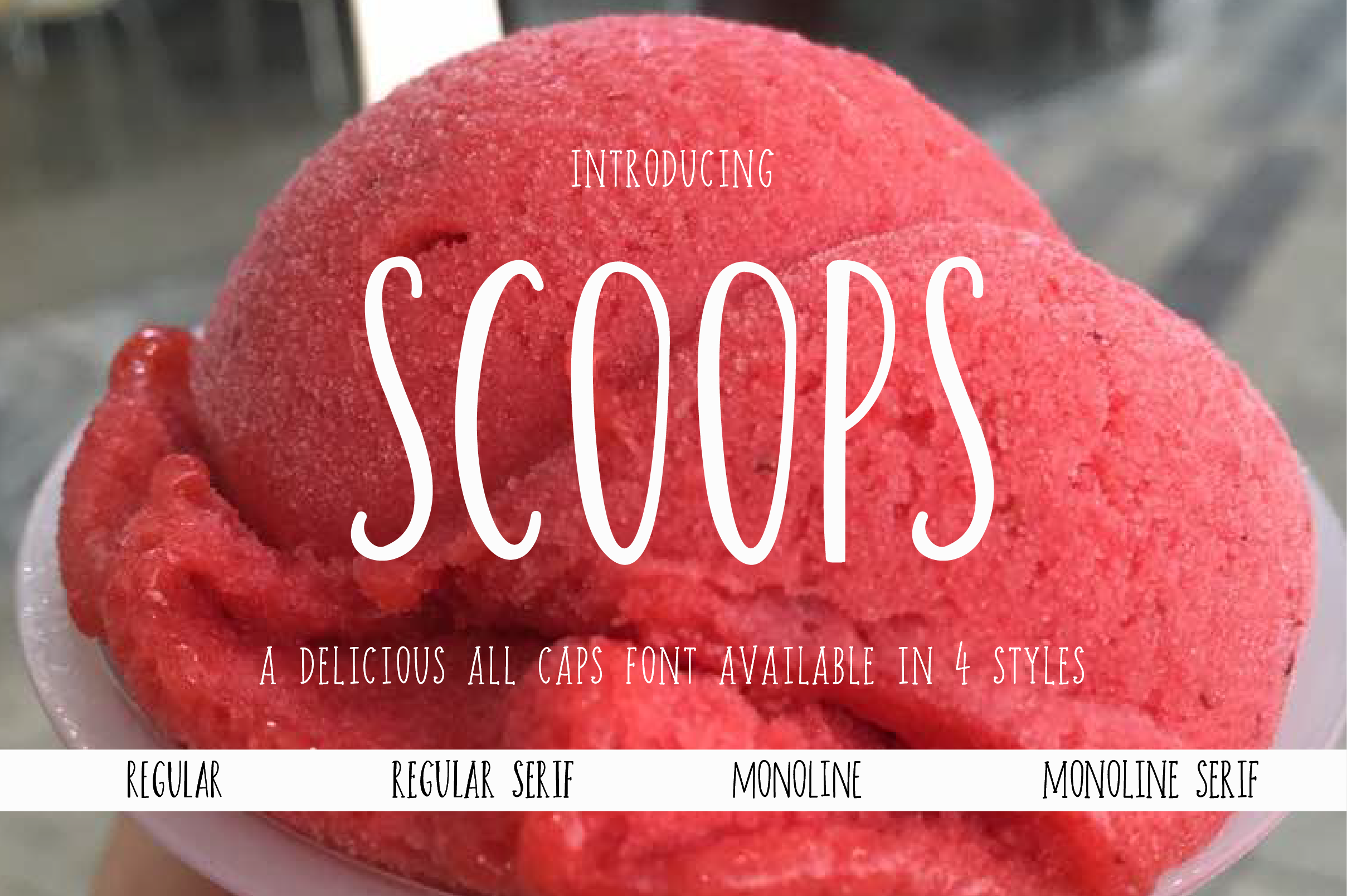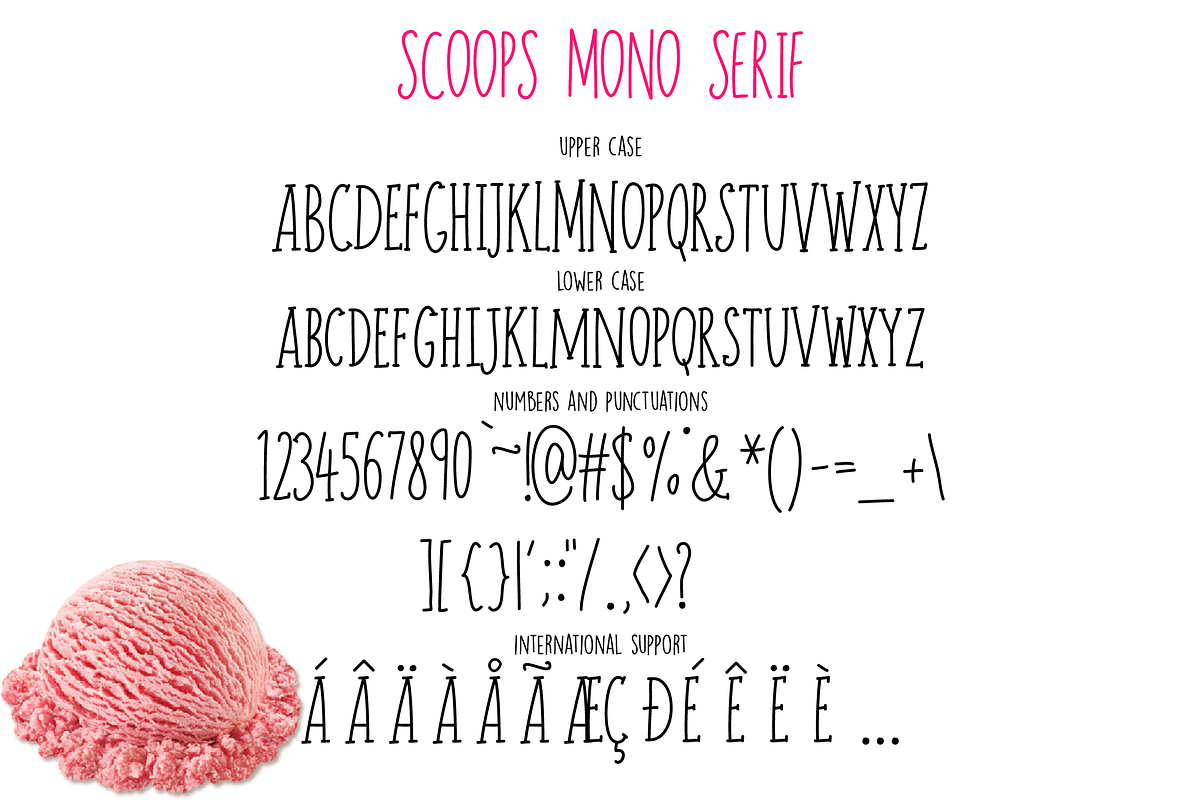
Scoops Font
Meet Scoops an adorably delicious all caps font ideal for all kinds of projects ranging from branding like logos, business cards to packaging to designing quotes, picture overlays, prints, apparels, etc. This font includes 4 different styles that can be used to pair with script fonts.
- Scoops Regular
- Scoops Serif
- Scoops Mono
- Scoops Mono Serif